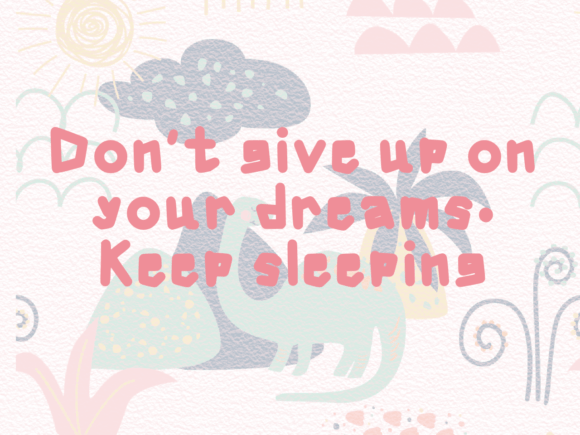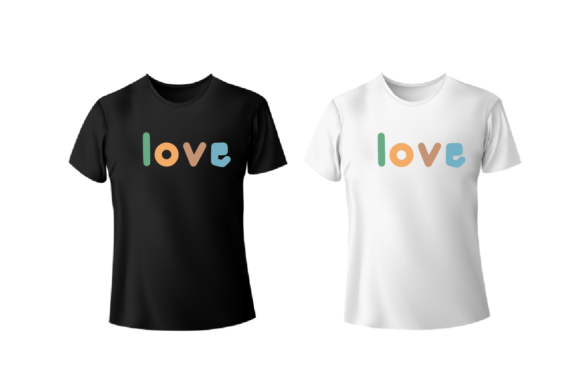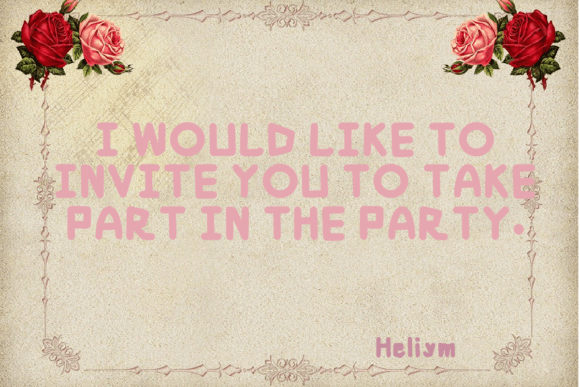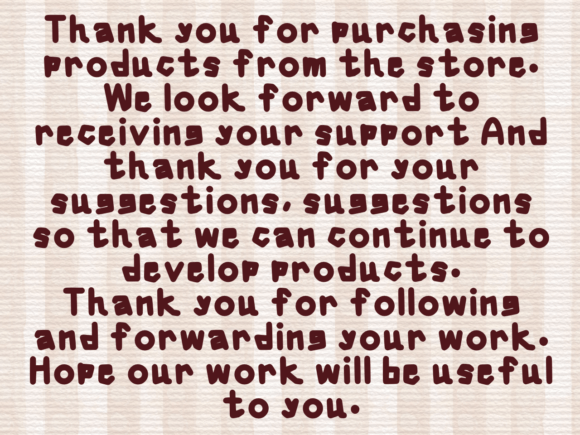
Introducing Heliym Font: Elevate Your Designs with Unique Lettering
Are you tired of using the same old fonts for your designs? Do you want to add a personal touch to your greeting cards, wedding cards, and other creative projects? Look no further than Heliym Font, a stylish and versatile font that can help you create stunning lettering pieces. In this article, we’ll explore the features and benefits of Heliym Font, and how you can use it to take your designs to the next level.
What is Heliym Font?
Heliym Font is a beautifully crafted font that boasts a unique and distinctive style. It is a letter in the style of a font that has different characteristics, allowing you to add a touch of elegance and sophistication to your designs. With Heliym Font, you can create beautiful lettering pieces that are sure to impress. Whether you’re a designer, crafter, or DIY enthusiast, this font is perfect for anyone looking to add a personal touch to their projects.
Key Features of Heliym Font
So, what makes Heliym Font so special? Here are some of its key features:
- Unique Style: Heliym Font has a distinctive style that sets it apart from other fonts. Its elegant and sophisticated design makes it perfect for creating beautiful lettering pieces.
- Versatile: Heliym Font can be used for a wide range of projects, including greeting cards, wedding cards, posters, and more.
- Customizable: With Heliym Font, you can customize your lettering to suit your needs. Experiment with different colors, fonts, and designs to create a unique look.
Want to see what you can create with Heliym Font? Here are some ideas and inspiration to get you started:
- Greeting Cards: Create beautiful greeting cards for special occasions like birthdays, holidays, and weddings.
- Wedding Cards: Design stunning wedding cards that will make the happy couple feel special.
- Posters: Create eye-catching posters for events, promotions, or businesses.
- DIY Projects: Use Heliym Font to add a personal touch to your DIY projects, such as scrapbooking, journaling, or crafting.
In conclusion, Heliym Font is a versatile and stylish font that can help you elevate your designs and add a personal touch to your projects. With its unique style, versatility, and ease of use, it’s perfect for designers, crafters, and DIY enthusiasts. So why wait? Download Heliym Font today and start creating stunning lettering pieces that will impress and inspire.